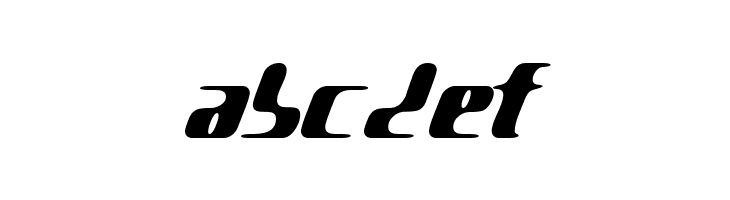
Gellatio Personal Use Font
- Font: Gellatio Personal Use
A bold, italicized, and condensed font with a futuristic look.
( Fonts by Beyond Design - Ola Bjorling )